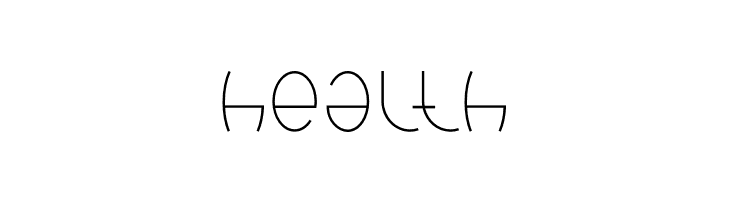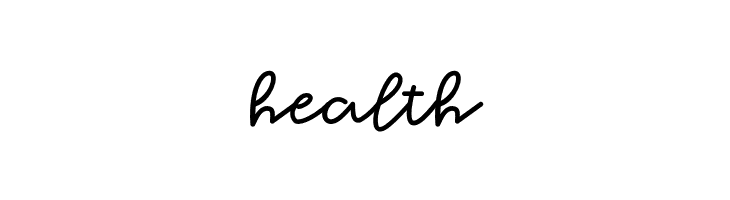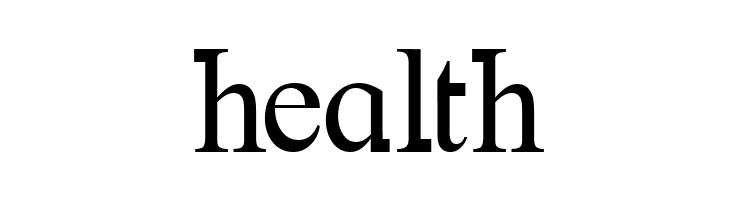
Kindersley Grand Arcade Font
A classic serif font with modern elegance and clarity.
Kindergarten Font
Font by Jonathan Harris - www.tattoowoo.com
A playful, hand-drawn font with a whimsical, childlike style.
Kinder Child Font
Font by UI Creative
A playful, rounded font with a hand-drawn feel, perfect for child-friendly designs.
KindersleyGA OldStyleFigure Font
A classic serif font with elegant, well-proportioned characters.
KG Miss Kindergarten Font
Font by www.kimberlygeswein.com - Kimberly Geswein
A playful, rounded handwritten font perfect for child-friendly designs.
kindergarten Font
A playful, childlike font with rounded, irregular strokes.
Kinder-Vignetten Font
Font by Dieter Steffmann
Vintage children vignette illustrations with detailed line art.
DF667 New Kinder Font
A classic serif font with modern elegance and medium contrast.
Kinder School Demo Font
Font by Noah Type
A bold, rounded font with a friendly and approachable style.
Kinder School Demo Sketch Font
Font by Noah Type
A playful, sketch-like font with a hand-drawn appearance, ideal for creative and educational projects.
Kinder Boy Regular Font
william jhordy
A bold, brush-style font with a playful, handcrafted appearance.
LesliesHand Font
A playful, hand-drawn font with rounded, informal characters.
Simple_kindergarden Font
Font by Sabina
A playful, hand-drawn font with a whimsical, childlike style.
Kinderspiel Script DEMO Regular Font
Fathialghazi - creativemarket.com/fathialghazi
A playful and casual handwritten font with fluid, dynamic strokes.
Kinder Boy Italic Font
Alpaprana
A bold, brush-style italic font with dynamic, hand-painted strokes.
Kinderson Notes Font
Font by Perspectype Studio
A playful, handwritten-style font with rounded, consistent strokes.
Kinderzone Font
Font by Fontsera
A bold, rounded font with a playful and friendly style.
Kinderfeld AOE Font
Font by Astigmatic One Eye Typographic Institute - Brian J. Bonislawsky - astigmatic.com
A gothic, decorative font with sharp, elongated strokes and a distressed appearance.
KindergartenNBP Font